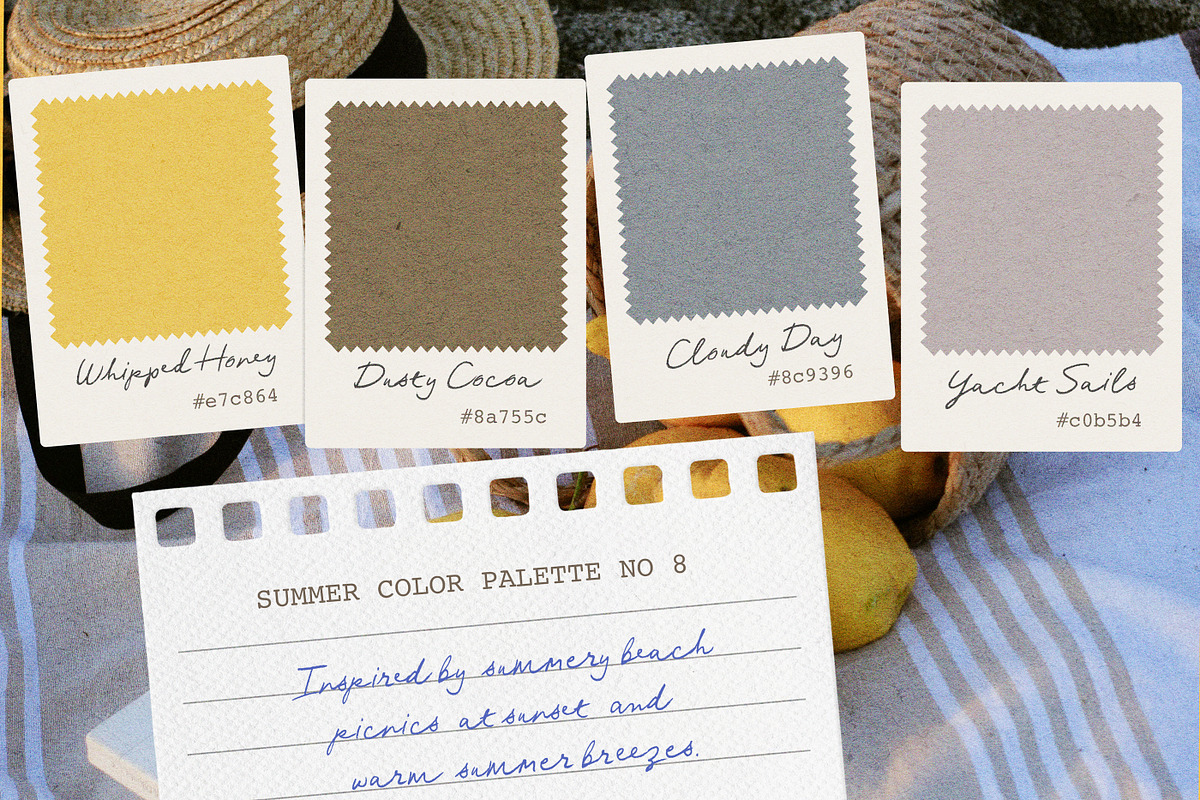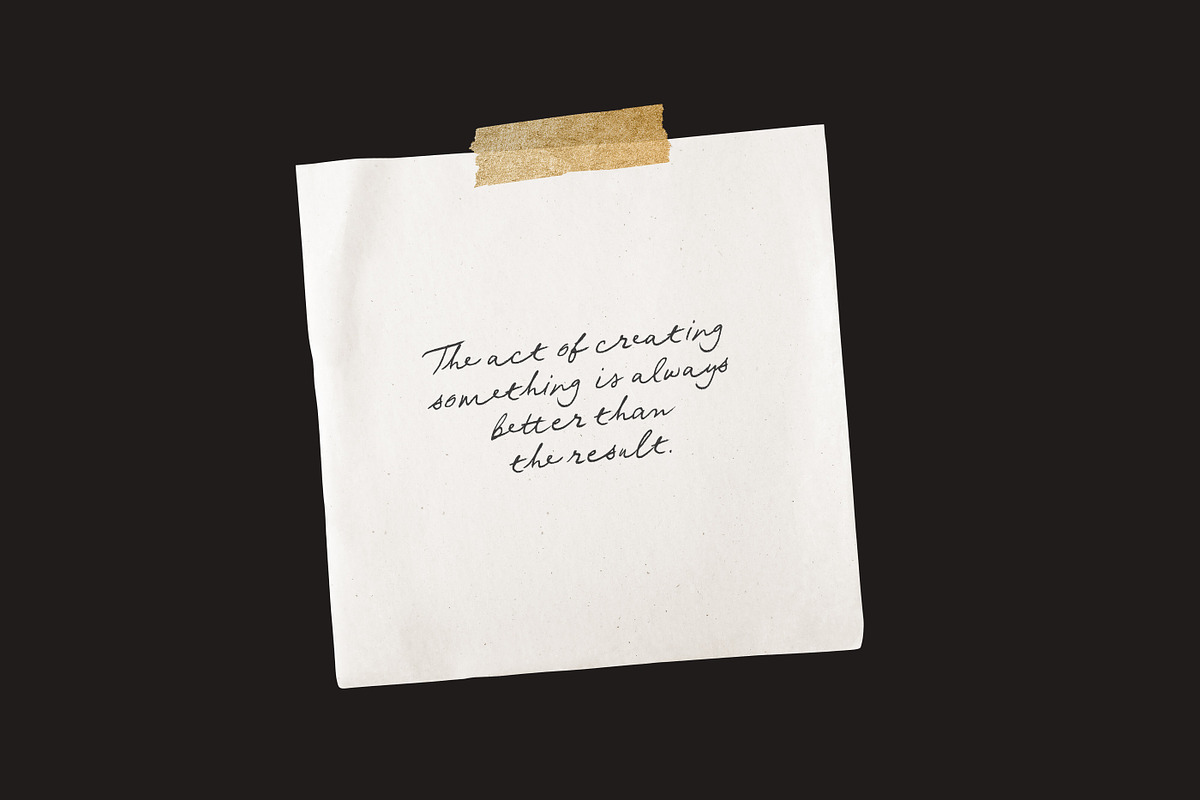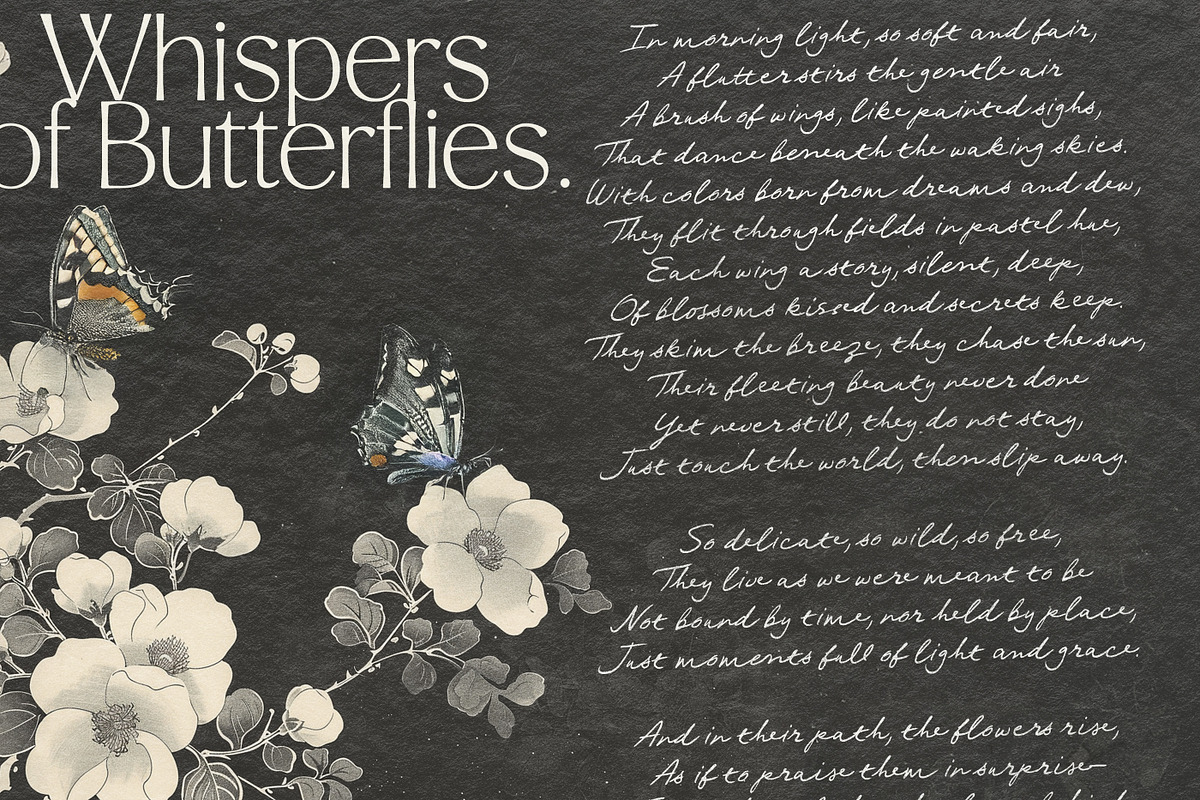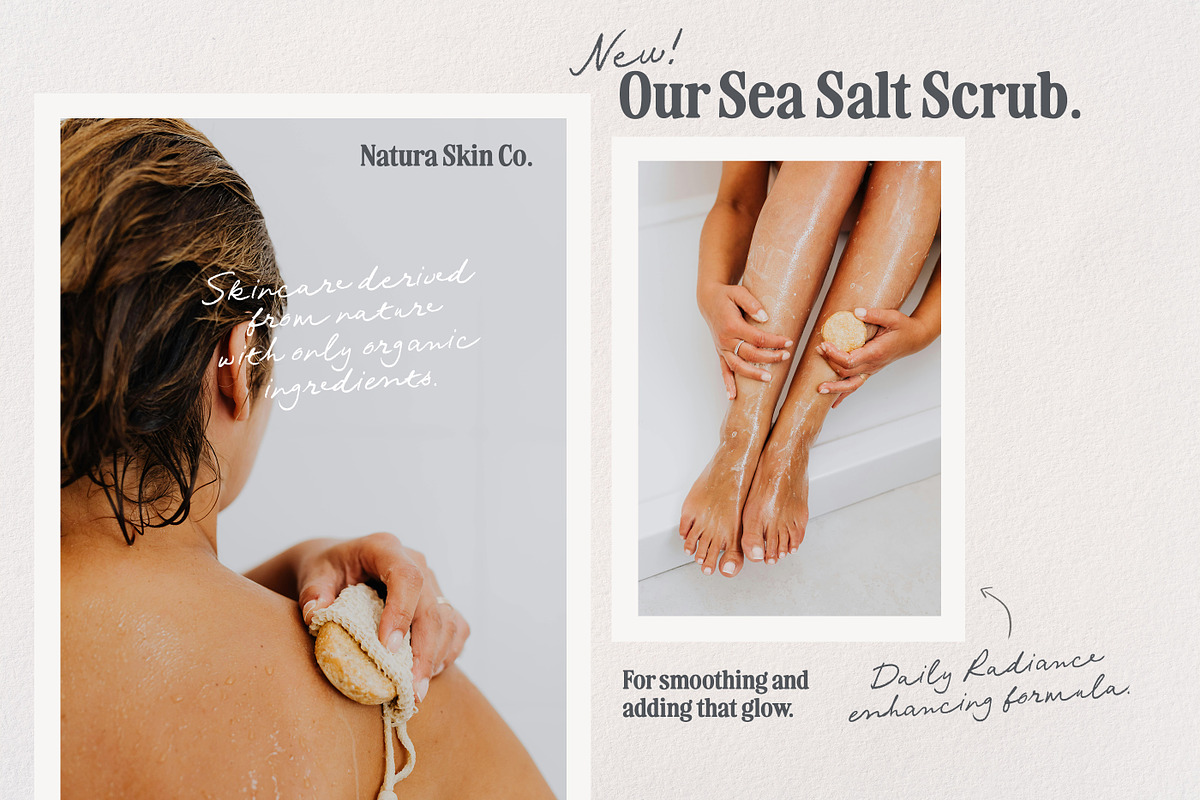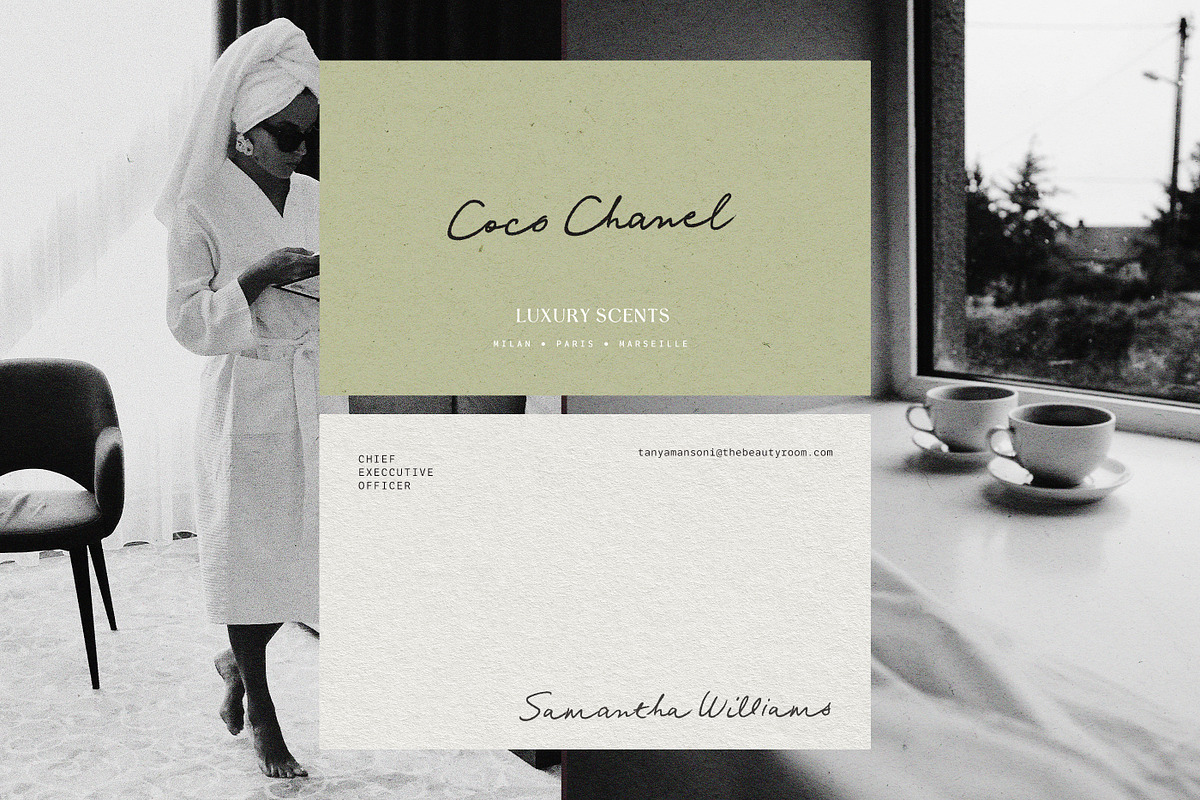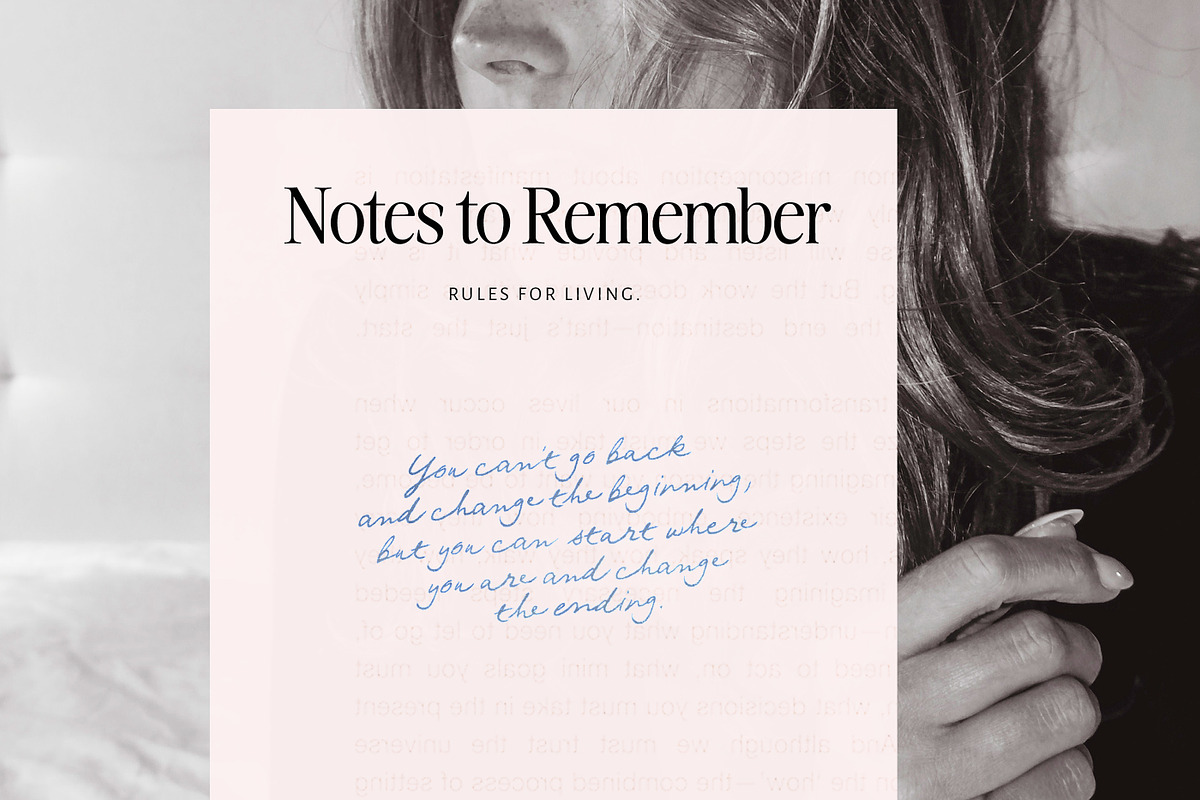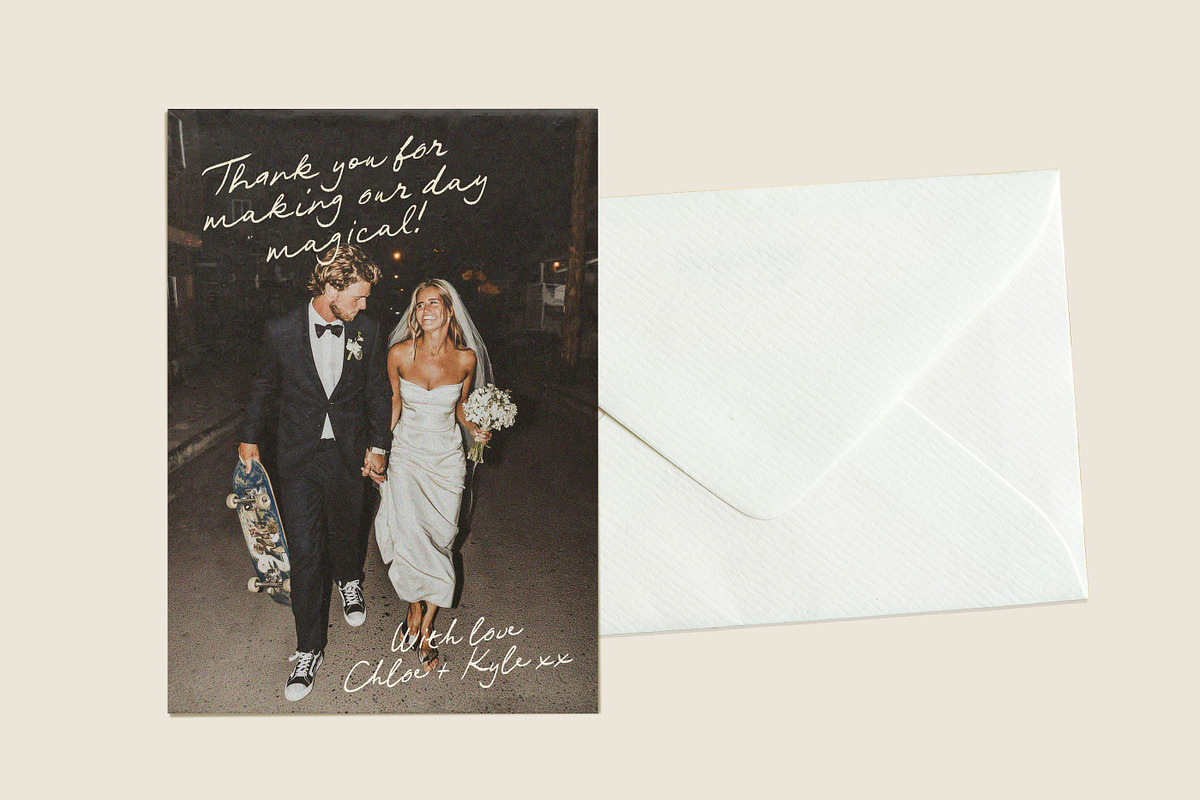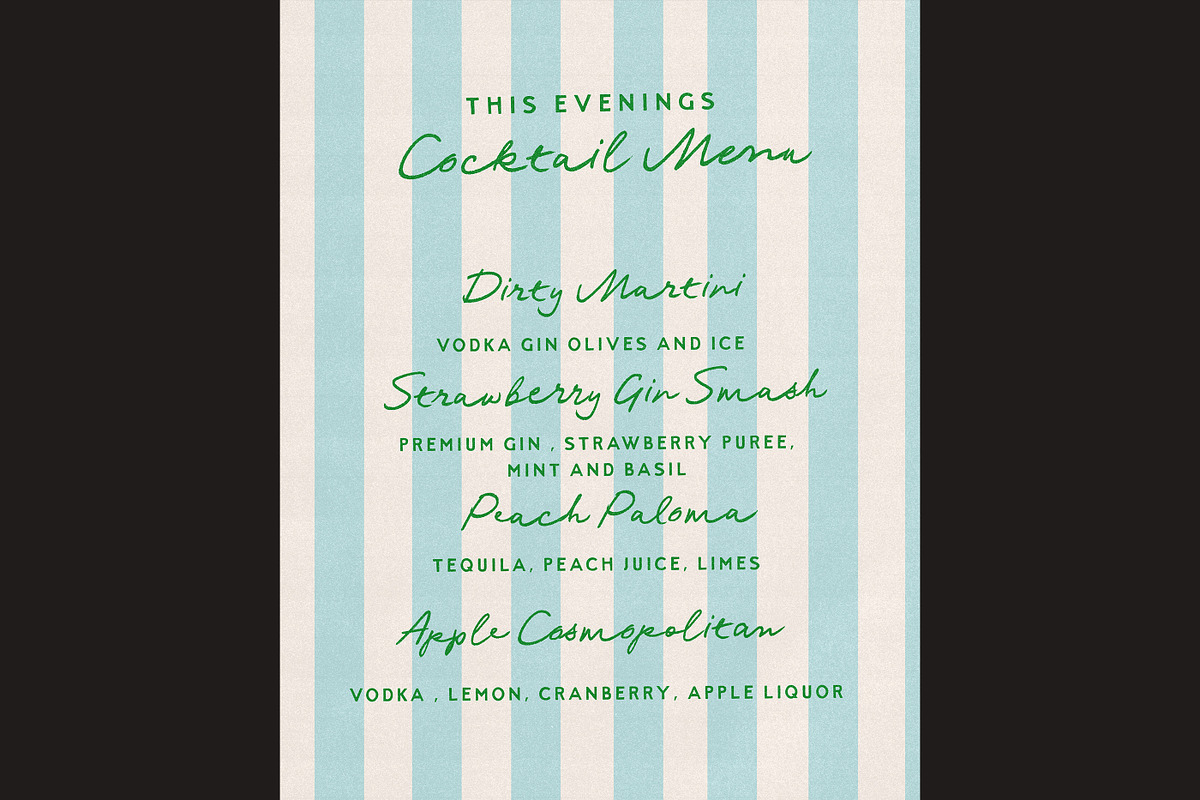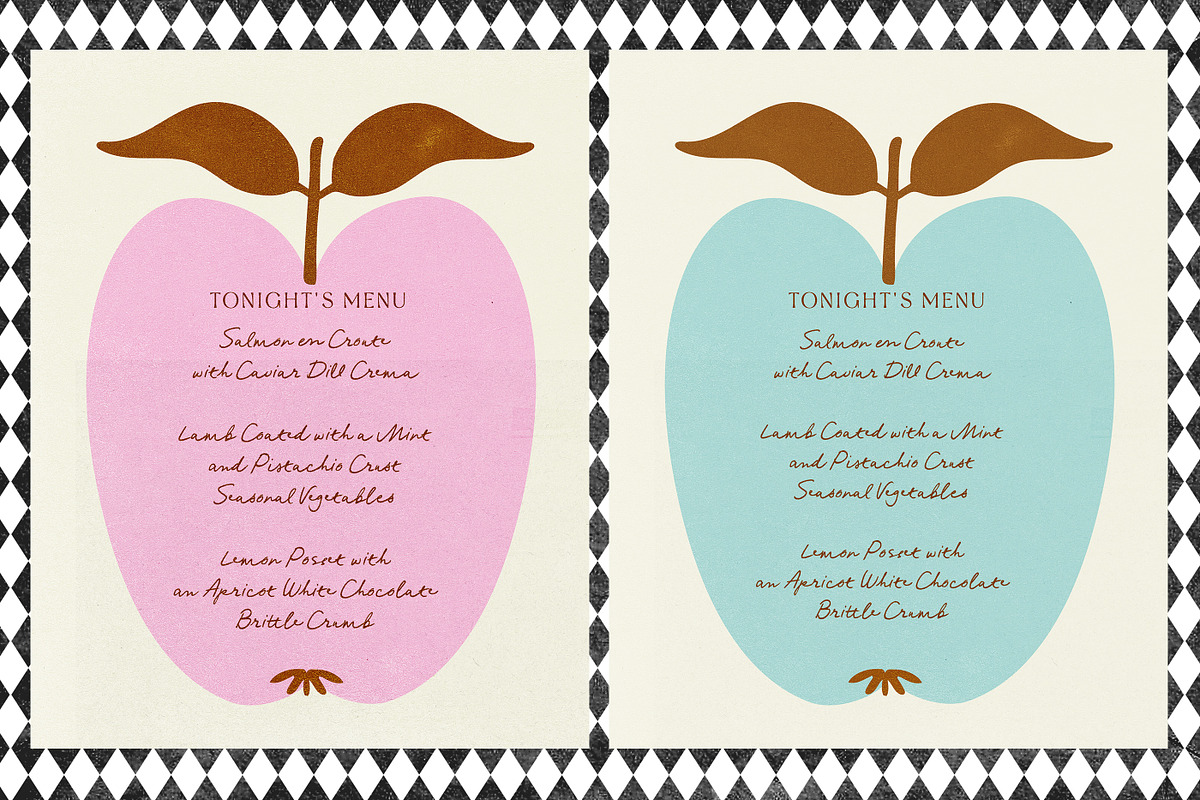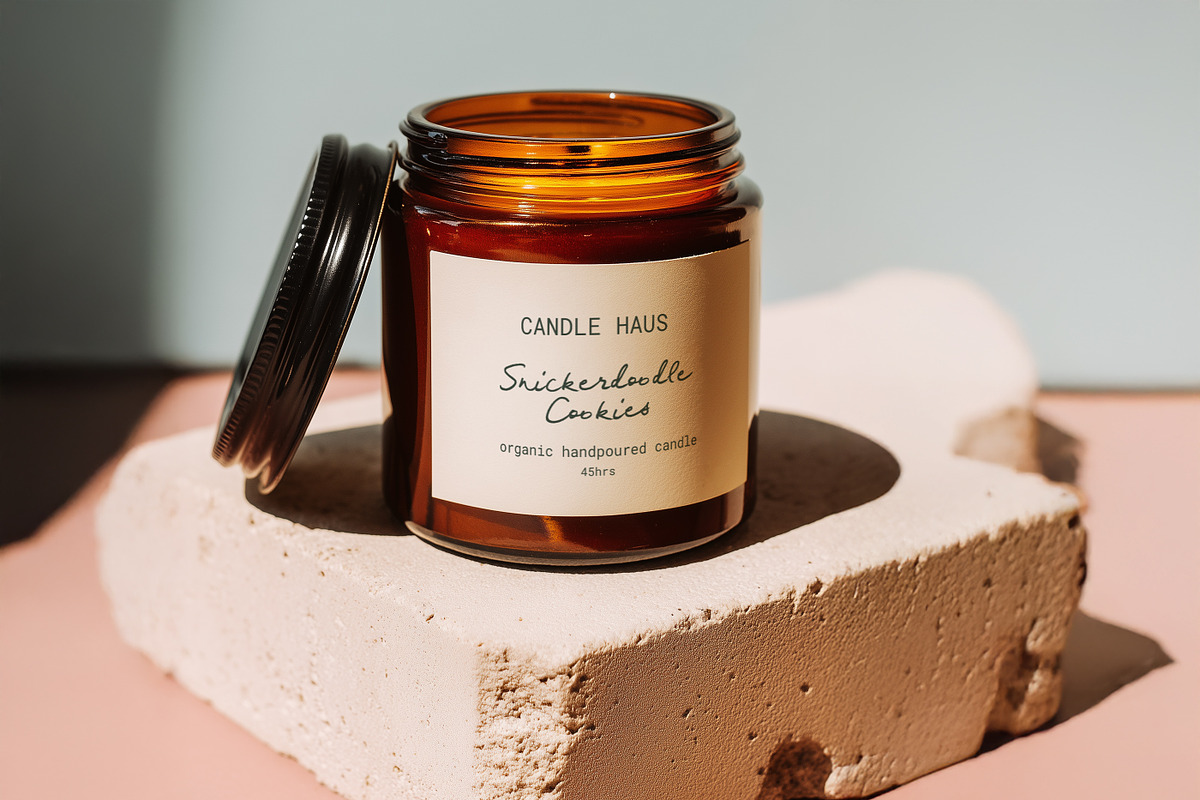
Postcards From Portugal
Say hello to Postcards From Portugal! A light-hearted, rough-edged little penned script, inspired by travel, sun-drenched coastlines, and handwritten memories, this font adds a personal, breezy touch to everything from brand visuals to stationery, social content, and more. Designed to be playful, but with a touch of elegance - she can morph into so many different vibes! Perfect for postcards, packaging, quotes, journals, notes and anything that needs a personal touch! Whether you're designing a dreamy logo or a heartfelt message, Postcards from Portugal feels like a sip of wine by the sea.
Postcards from Portugal has built-in Opentype alternates & ligatures for authentic character variety - so be sure to have them turned on in your design app :)
The Font comes with some handy variants for you - a slightly lighter version , a compact/narrower version, and more oblique versions of each.